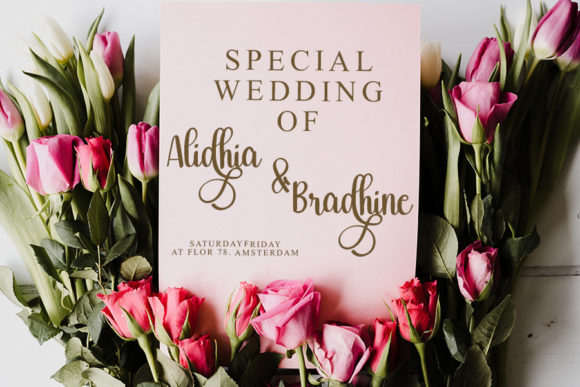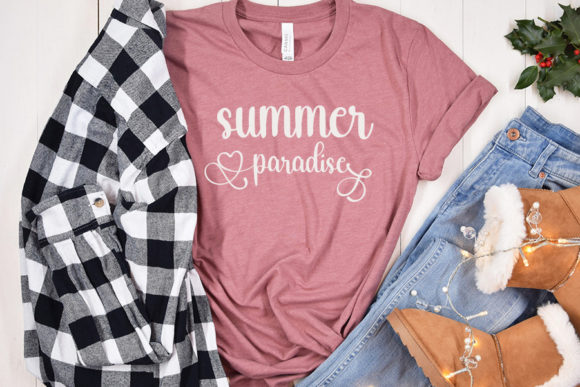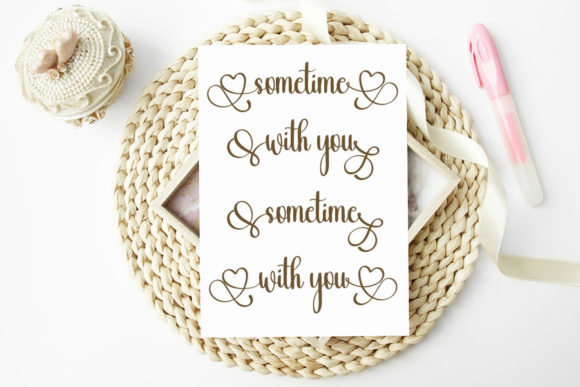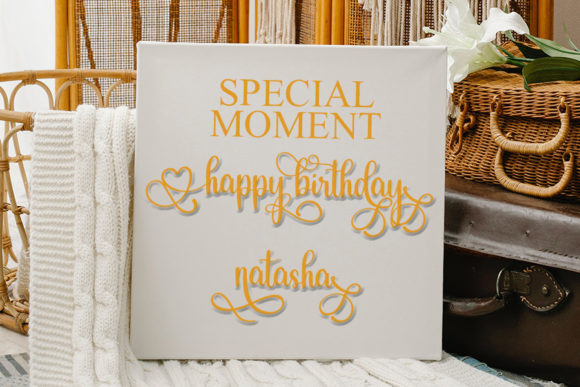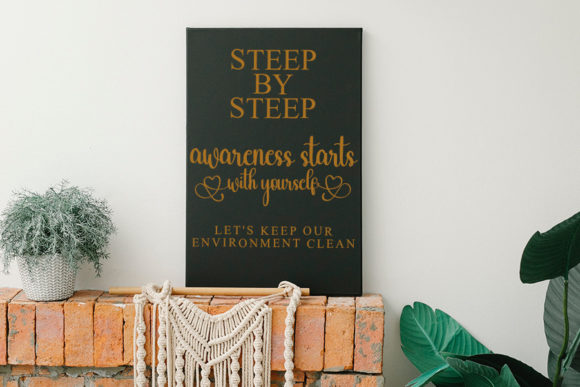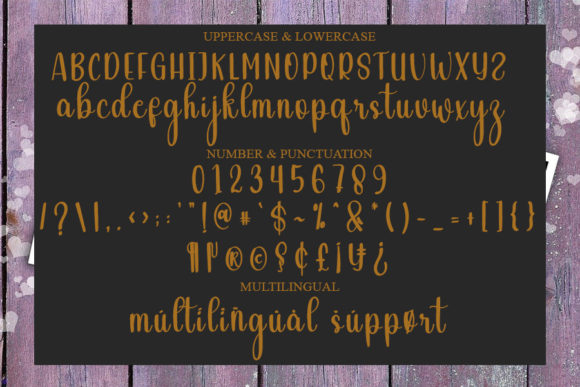
Introduction to Middlelove Font
Have you ever stared at a blank page, desperately searching for the perfect font to bring your creative vision to life? As a designer, I’m sure you’ve been there – the frustration of scrolling through endless options, only to find that nothing quite captures the essence of your design project. But what if I told you that I’ve discovered a game-changing font that’s about to revolutionize your creative workflow?
Meet the Middlelove Font, a stunning handwritten font that adds a touch of luxury and sophistication to any design project. With its elegant script and high-quality design, Middlelove Font is the perfect addition to your design resource arsenal. And the best part? It’s PUA encoded, making it easy to access all the amazing glyphs and ligatures you need to take your project to the next level.
Key Features of Middlelove Font
- High-quality font with a unique, modern design perfect for creative projects
- Features a clean and elegant design, making it suitable for a wide range of creative projects, from logos to typography
- Designed to be versatile and adaptable, making it a great addition to any design resource collection
Honest Review: Middlelove Font
As a designer, I’m always on the lookout for high-quality fonts that can elevate my creative projects. Recently, I had the chance to work with the Middlelove Font, and I must say it’s been a great addition to my design resource library.
Here are some of the things I like about the Middlelove Font:
- ✨ High-quality design: The font is well-crafted, with a clean and modern aesthetic that’s perfect for a variety of creative projects.
- ✨ Versatility: The Middlelove Font comes in a range of weights, making it easy to use in different contexts, from headings to body text.
- ⚠️ Limited transparency options: While the font has a transparent background, I wish there were more options for adjusting the level of transparency.
- ⚠️ Limited language support: Unfortunately, the Middlelove Font doesn’t support as many languages as I would have liked.
Overall, I’m impressed with the Middlelove Font and would definitely recommend it to fellow designers. While it has its limitations, its high-quality design and versatility make it a valuable addition to any design resource library.
Use the Middlelove Font in conjunction with other high-quality design elements to create a cohesive and visually appealing design. Experiment with different font sizes, colors, and transparencies to achieve the desired effect. You can also use the font in combination with other design resources to create a unique and creative project.
The Middlelove Font is a versatile design resource that can be used in a variety of creative projects, including logos, brochures, business cards, and social media graphics. It’s also a great option for designers who want a high-quality font with a transparent background.